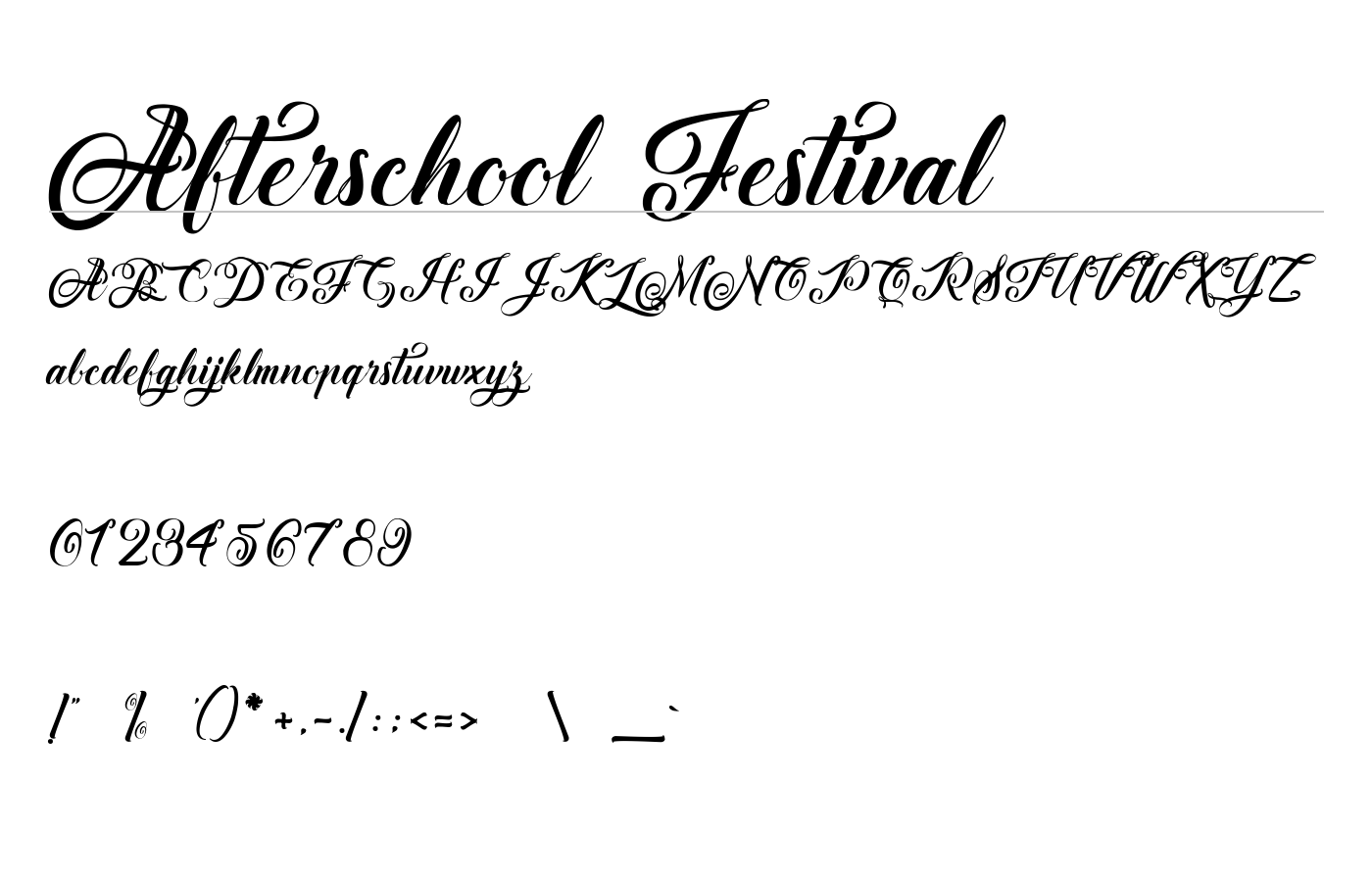
Afterschool Festival is an elegant script font with decorative, flowing letterforms that blend classic calligraphy with playful swirls and flourishes. Its medium weight and refined curves give it a stylish, sophisticated feel, making it perfect for invitations, branding, and festive design projects that seek a charming, celebratory character. This font shines in decorative headlines and logos where a touch of elegance and personality is desired.
Afterschool Festival Font
About Afterschool Festival Font